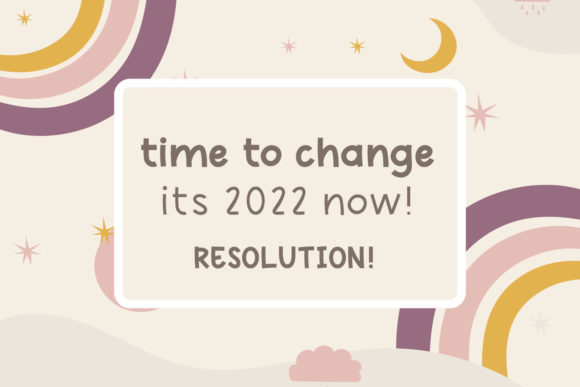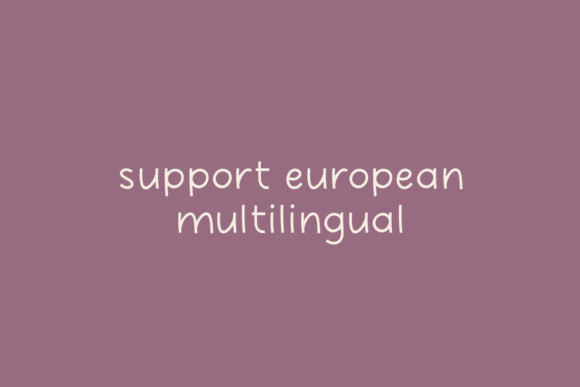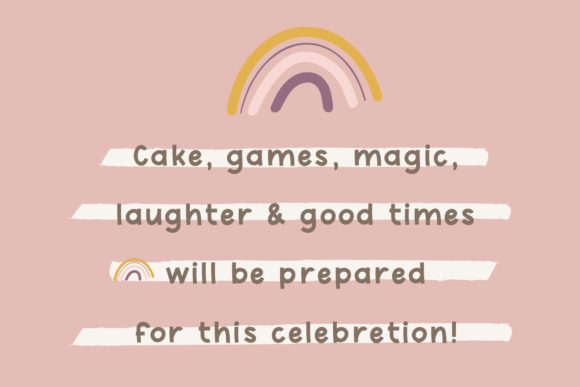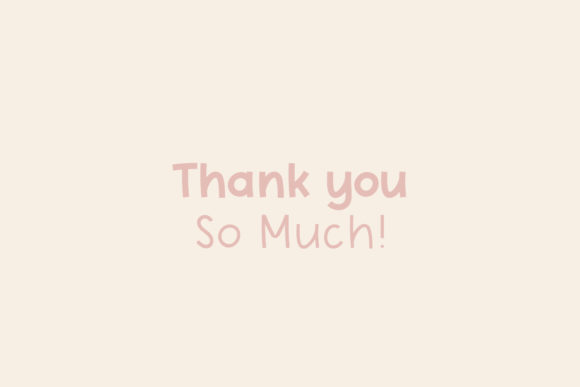
Introduction to Munch Krunch Font
Remember the thrill of creating a brand new project and finally finding the perfect font to bring it to life? It’s that magical moment when everything falls into place, and your vision starts to take shape. For designers, this feeling is a regular occurrence, but it’s always exciting. One such font that can elevate your creative project is the Munch Krunch Font – a cool and friendly display font that’s sure to be a valuable addition to your design resource library.
With its high-quality design, the Munch Krunch Font has the potential to enhance any creation, whether it’s a logo, poster, or social media graphic. The best part? It’s available for a free download, making it a fantastic resource for designers on a budget. Plus, its transparent background allows for seamless integration with any design, making it a versatile choice for any creative project.
Key Features of Munch Krunch Font
- The Munch Krunch Font is a unique design resource ideal for creative projects requiring a playful and whimsical touch.
- With its transparent background, the Munch Krunch Font is perfect for use in creative projects where a clean and minimalist design is desired.
- This versatile font features a range of characters, including uppercase and lowercase letters, numbers, and punctuation marks, making it suitable for a variety of design applications.
- The Munch Krunch Font is a one-of-a-kind design resource that can add a touch of personality and whimsy to any creative project, making it an excellent choice for designers looking to stand out from the crowd.
Honest Review: Munch Krunch Font
- ✨ The font’s unique, playful style is perfect for adding a touch of whimsy to your designs.
- ✨ The high-quality vectors make it easy to scale and manipulate without losing any detail.
- ✨ The transparent background option gives you the flexibility to use it with a variety of design elements.
However, I did encounter a few limitations ⚠️:
- ⚠️ The font is not as versatile as some other options, and may not be suitable for more formal or professional designs.
- ⚠️ Some users may find the font’s playful style to be overwhelming or too flashy.
Overall, I think the Munch Krunch Font is a great choice for designers who want to add some personality to their projects. While it may not be the best fit for every design, it’s a fun and high-quality option that’s definitely worth considering.